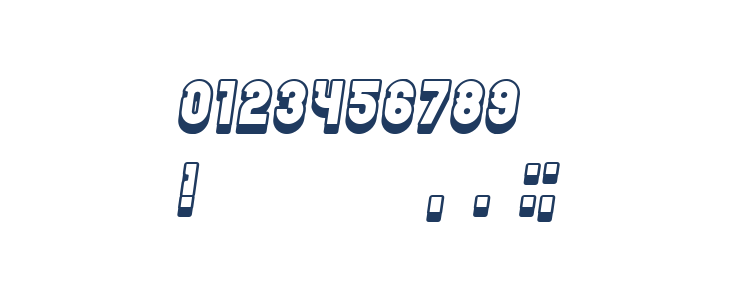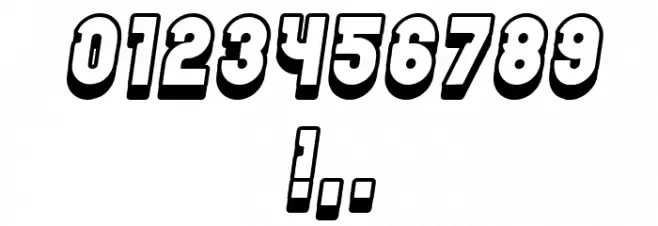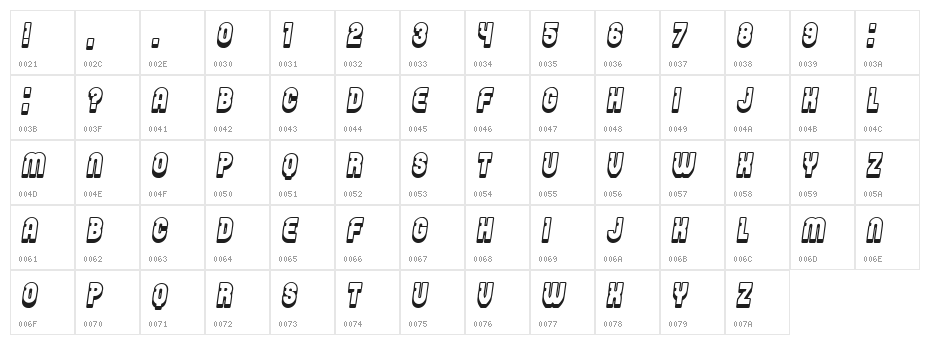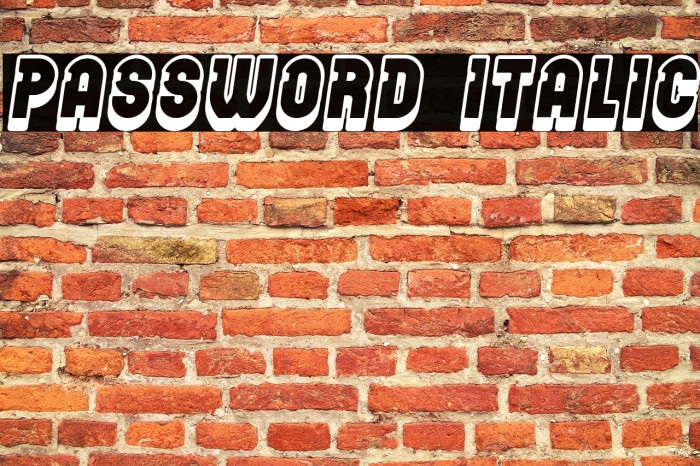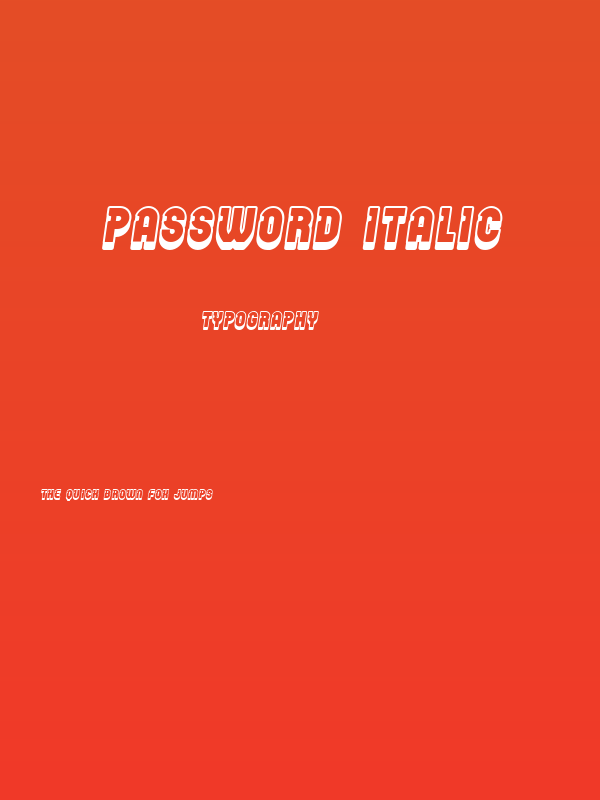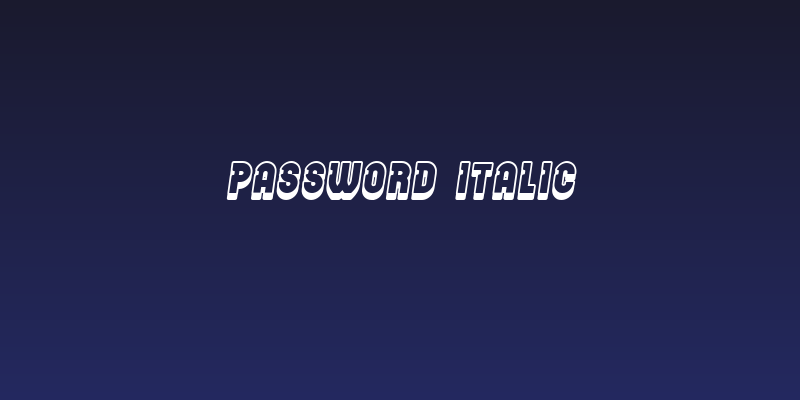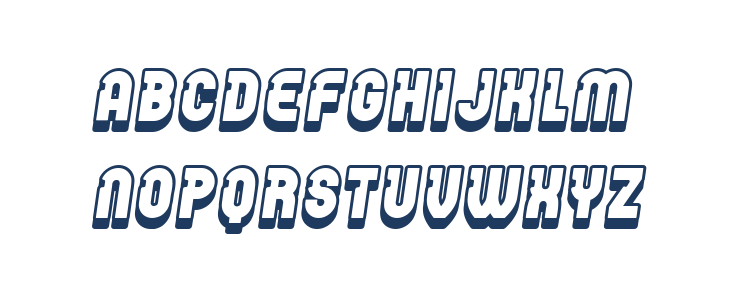
Password Italic Font
Password Italic Description
This font features bold, three-dimensional characters with a strong, impactful presence. The letters are uppercase and have a shadow effect that gives them a sense of depth and dynamism. The style is playful and energetic, making it suitable for eye-catching designs. The characters are evenly spaced, ensuring readability while maintaining a bold aesthetic. The font's design is consistent across all characters, including numbers and special symbols, which are styled to match the overall theme. The italic slant adds a sense of motion and urgency, enhancing its visual appeal.
| Proposed Projects | Ideal for posters, headlines, logos, and any design requiring a bold statement. |